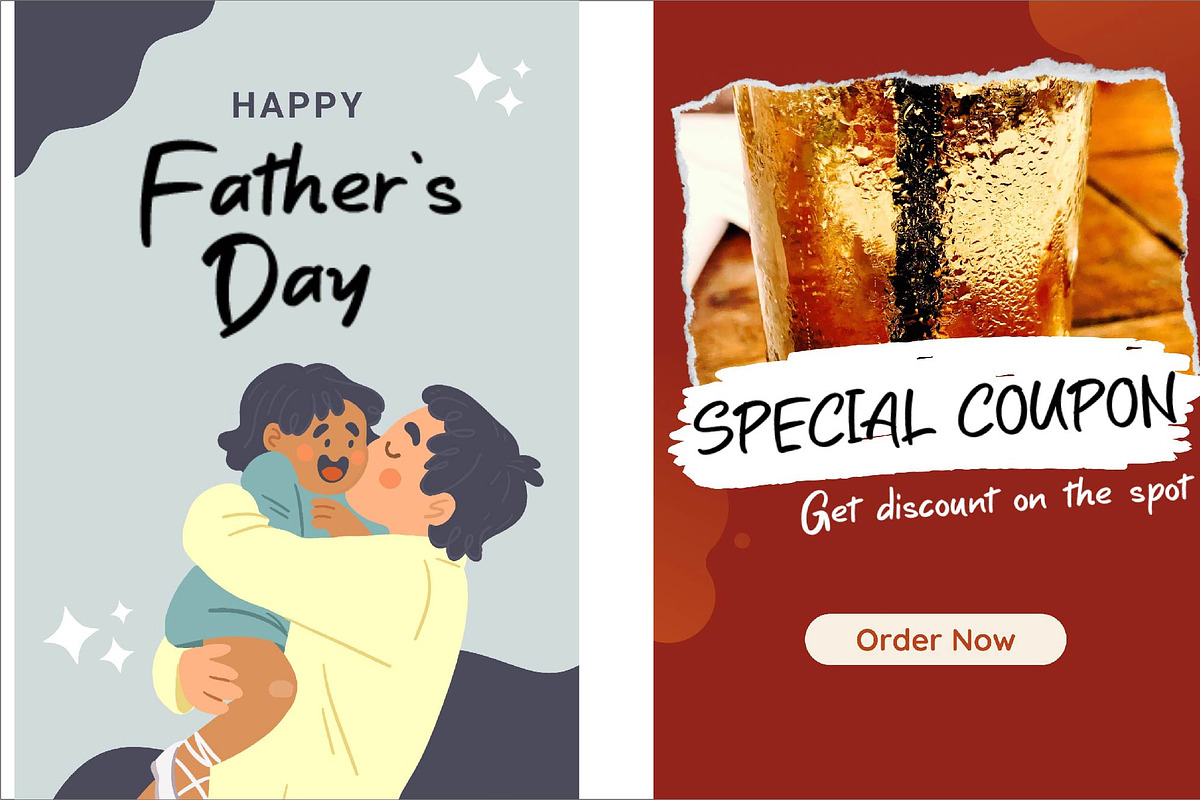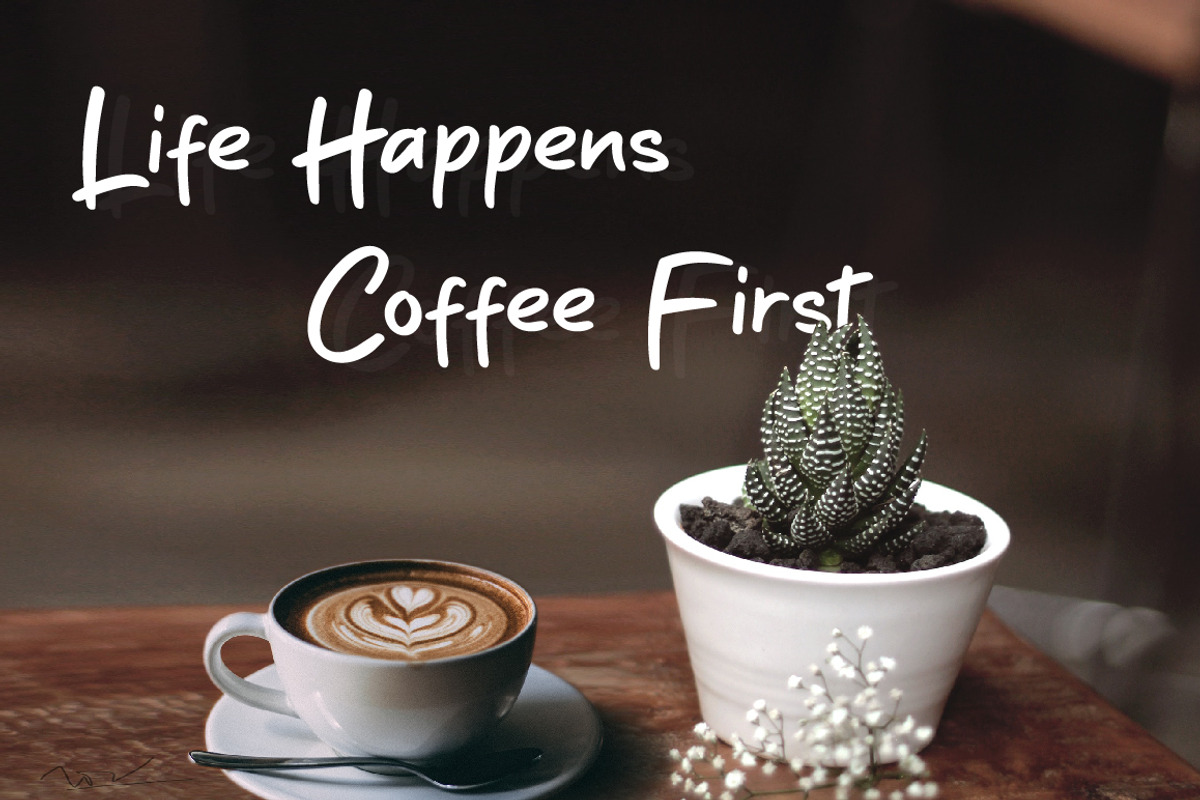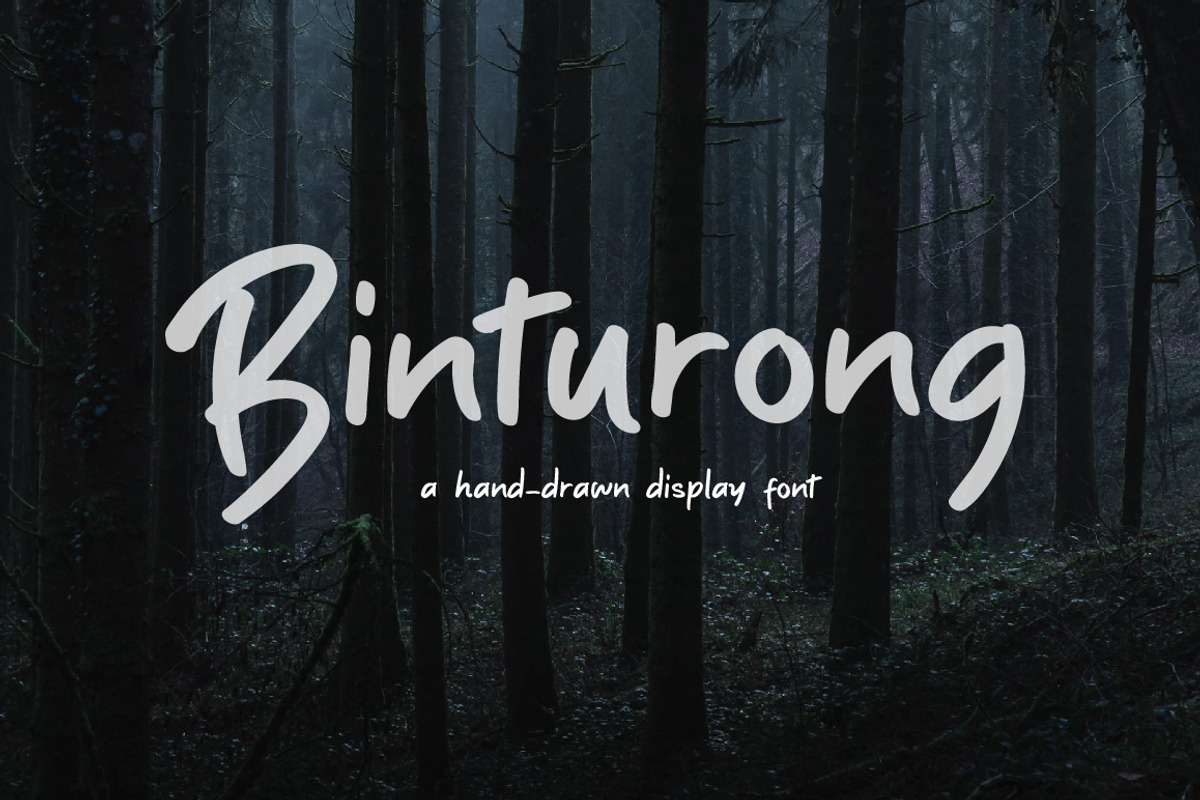
Binturong: A Hand Drawn Display Font
Meet Binturong, a captivating hand-drawn display font that exudes uniqueness. Its bold strokes and distinct style bring a touch of creativity to your designs, making them stand out effortlessly. Crafted with precision, Binturong is perfect for projects that demand a playful yet professional touch.
This font is ideal for headers and titles, digital ads, pamphlets, and flyers, infographics and visual data representations, navigation labels, web layouts, brand logos, apparel designs like T-shirts, and a variety of other applications.